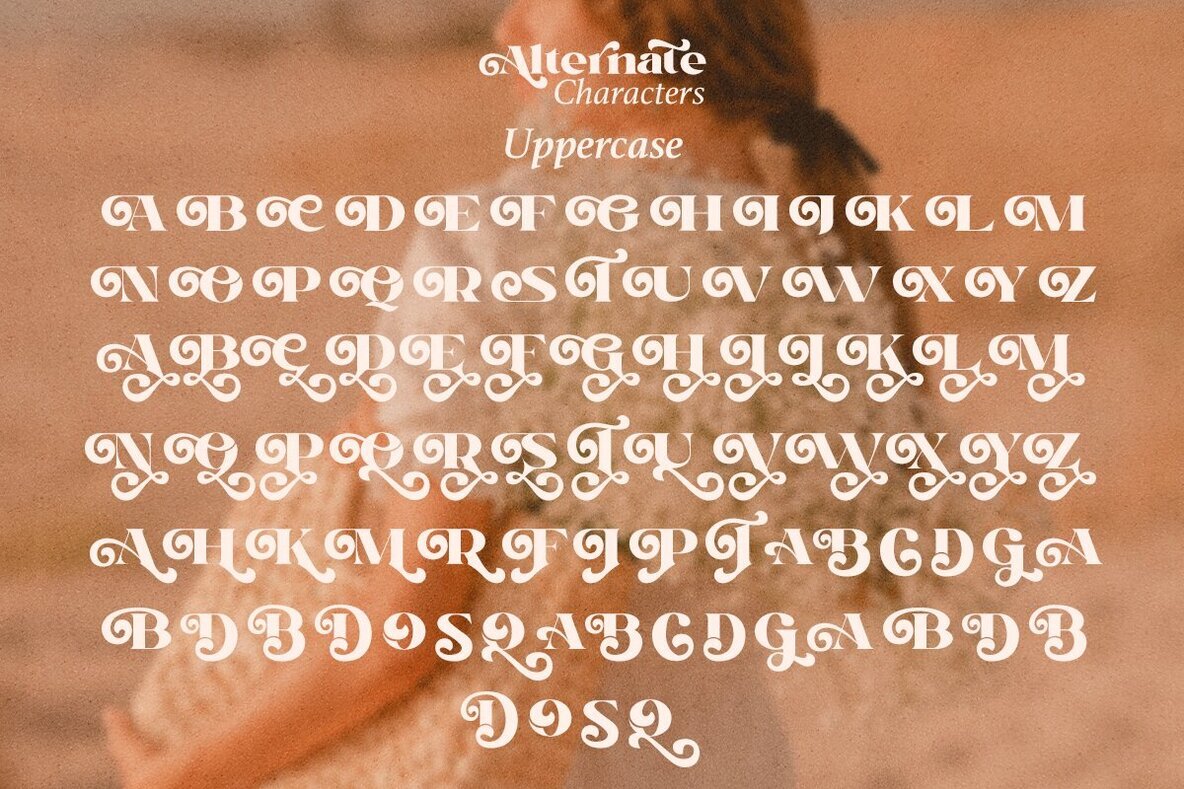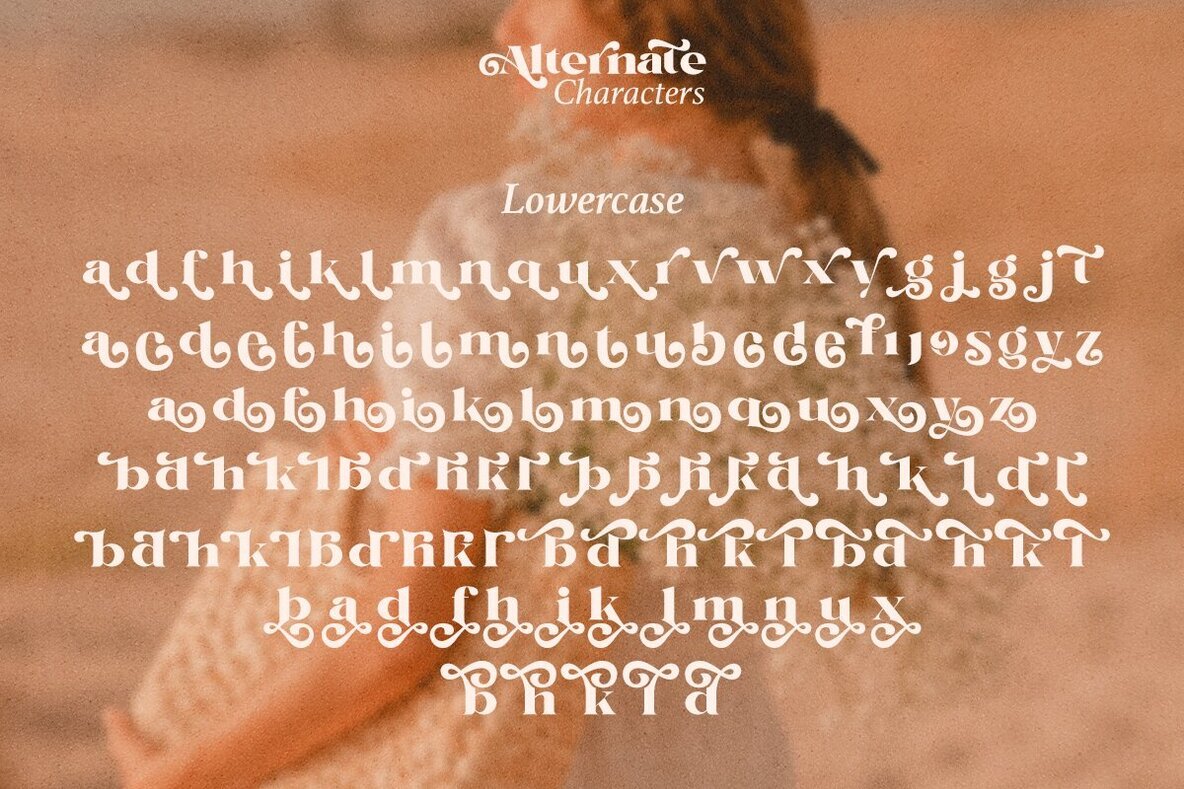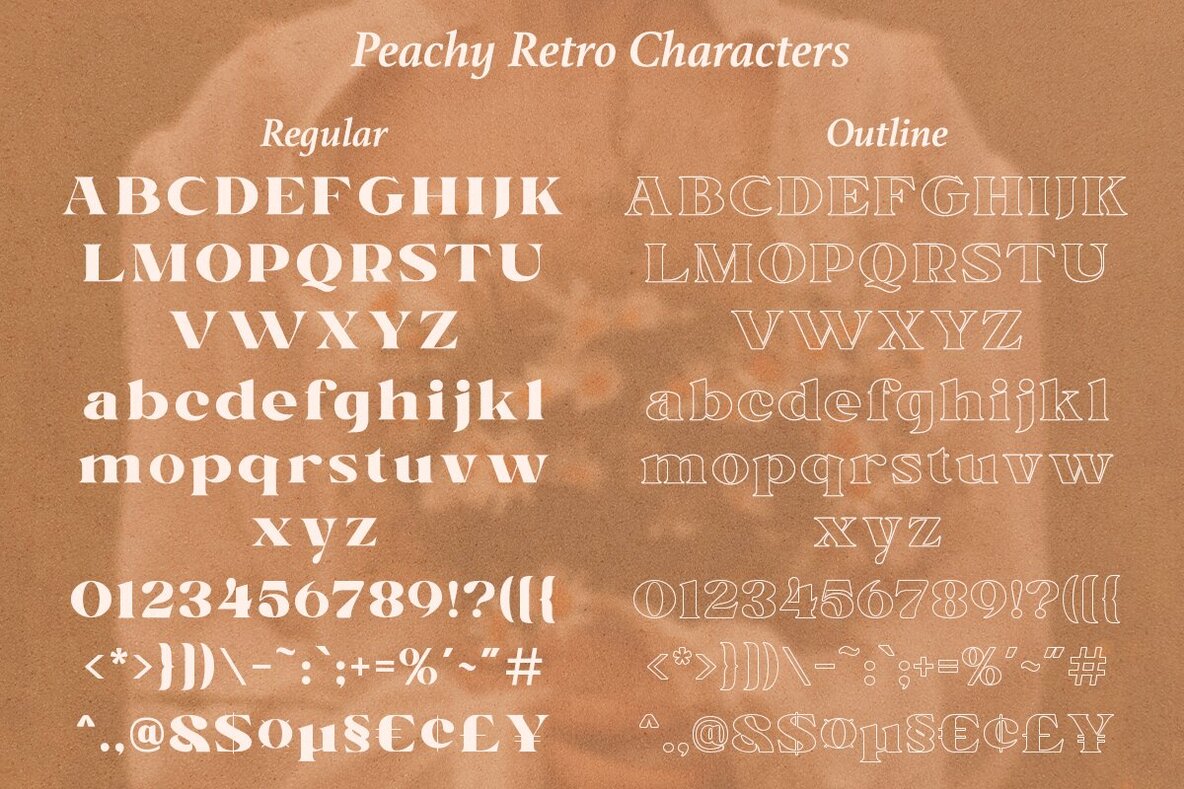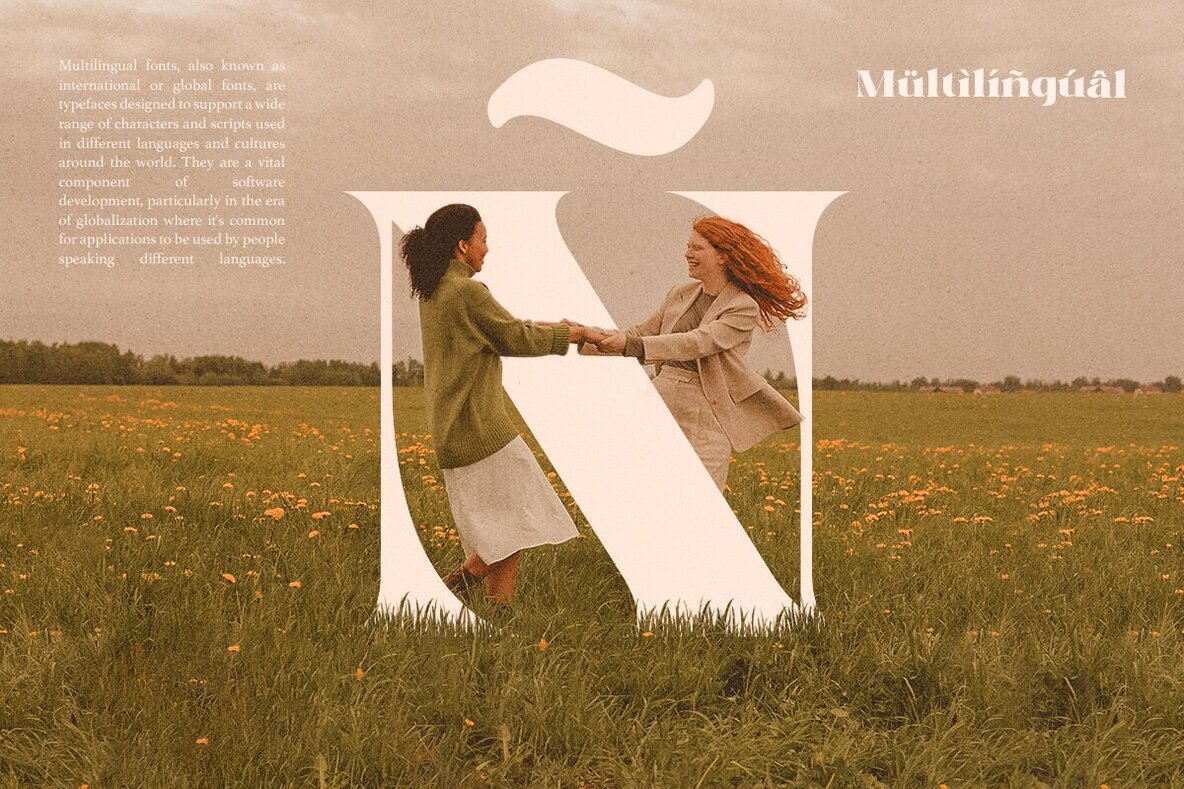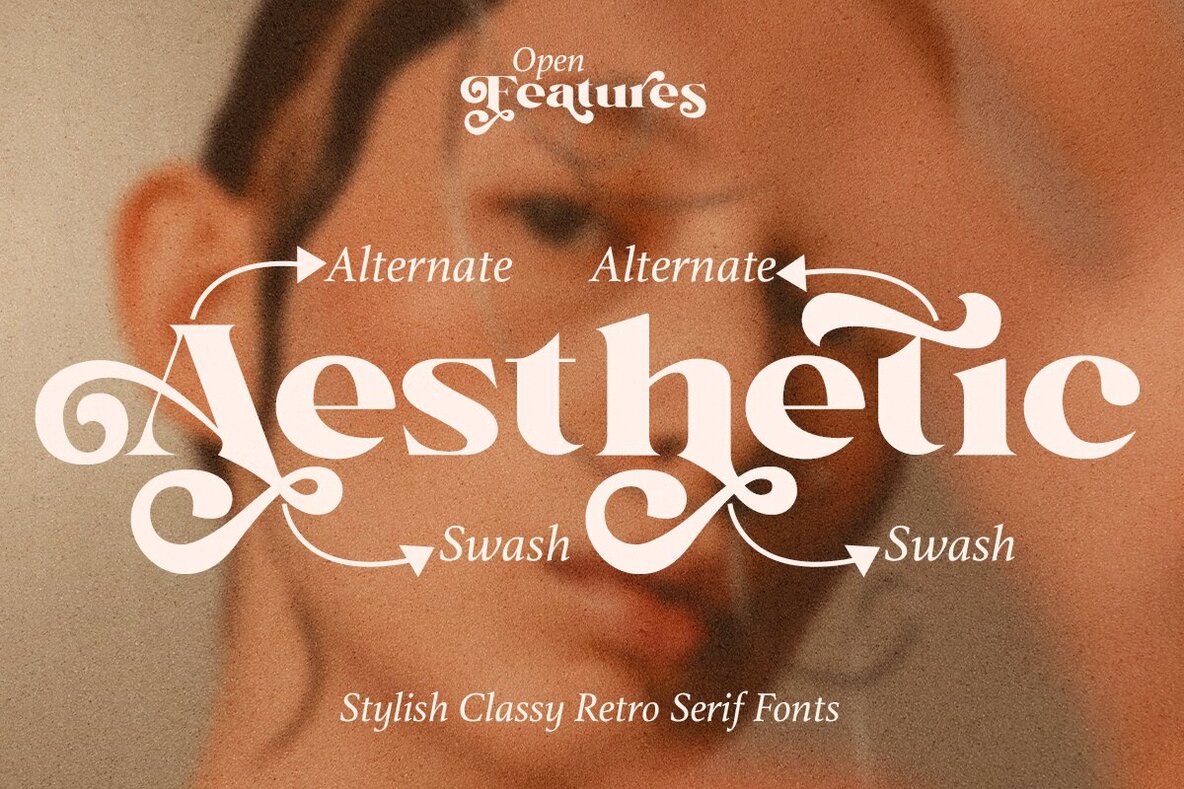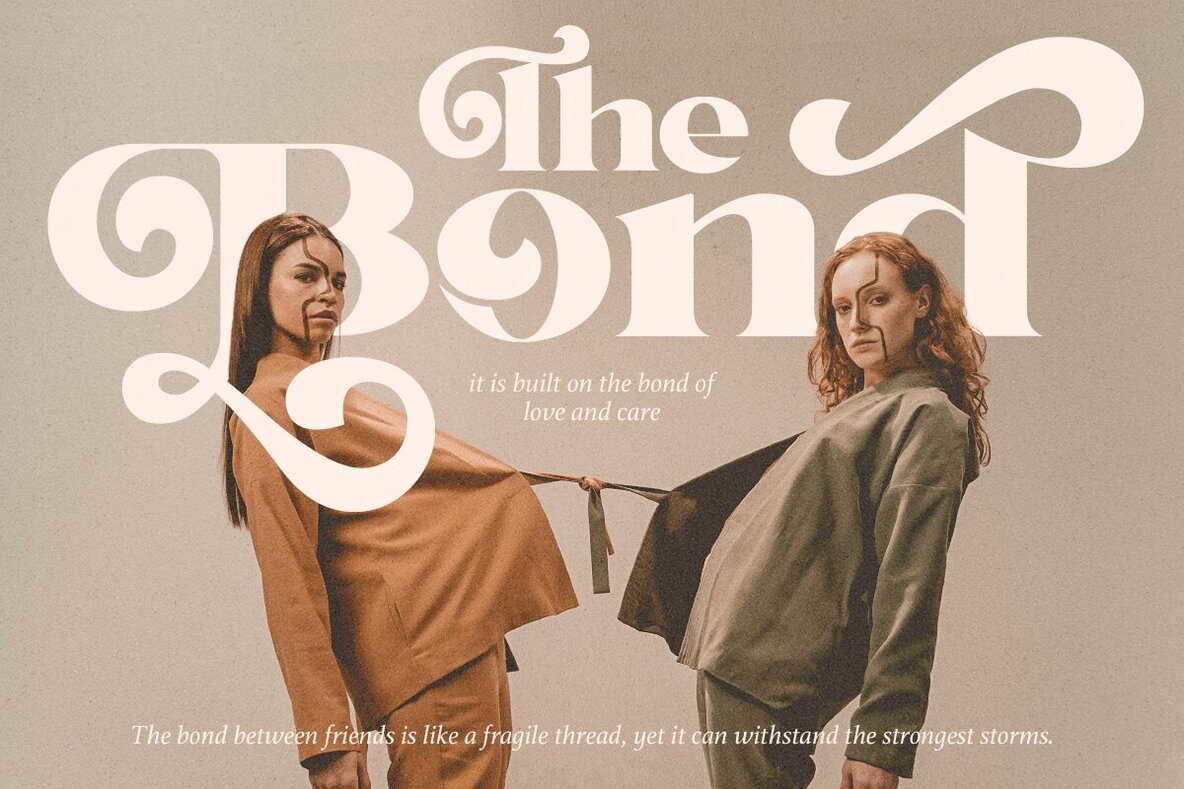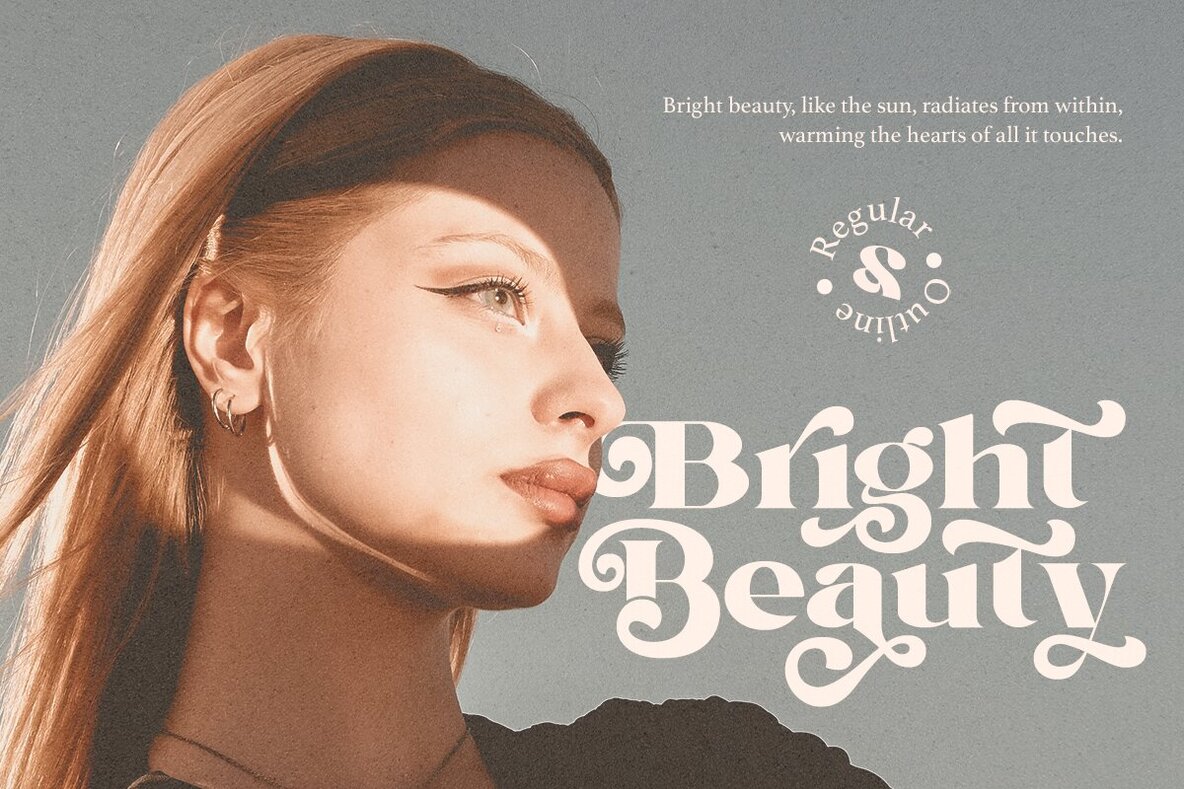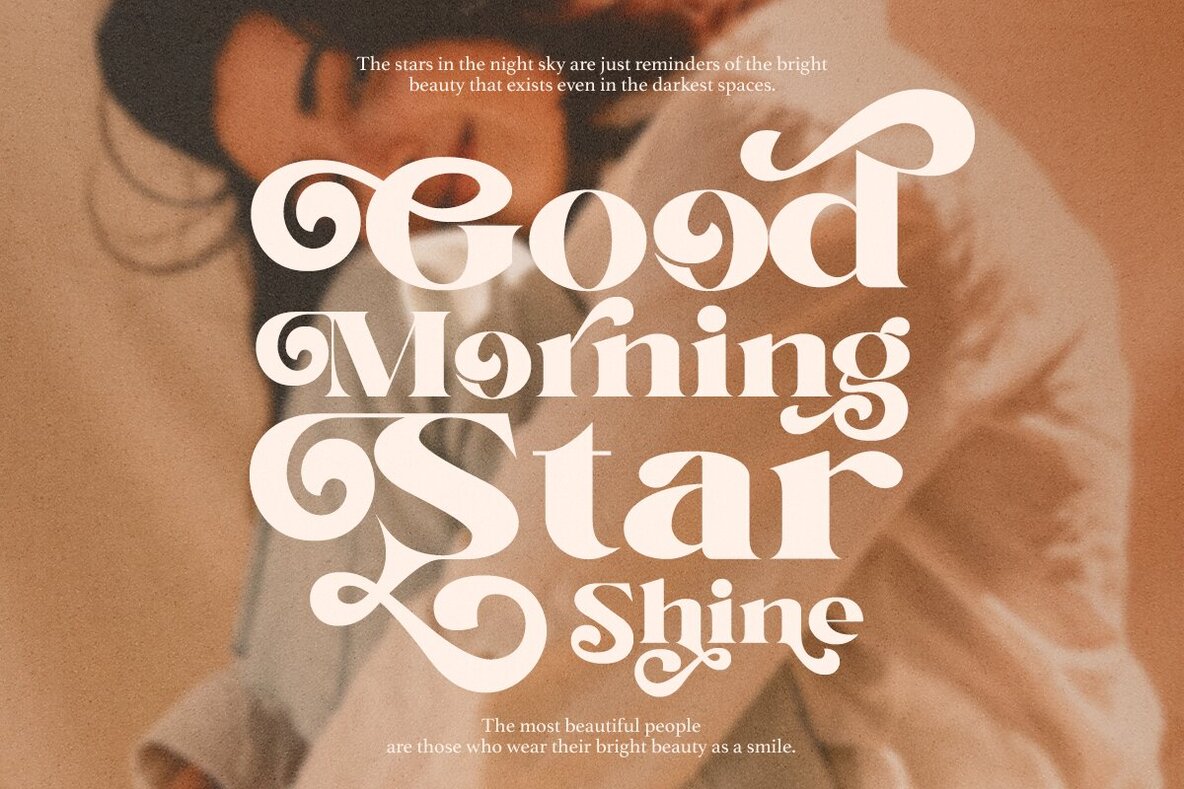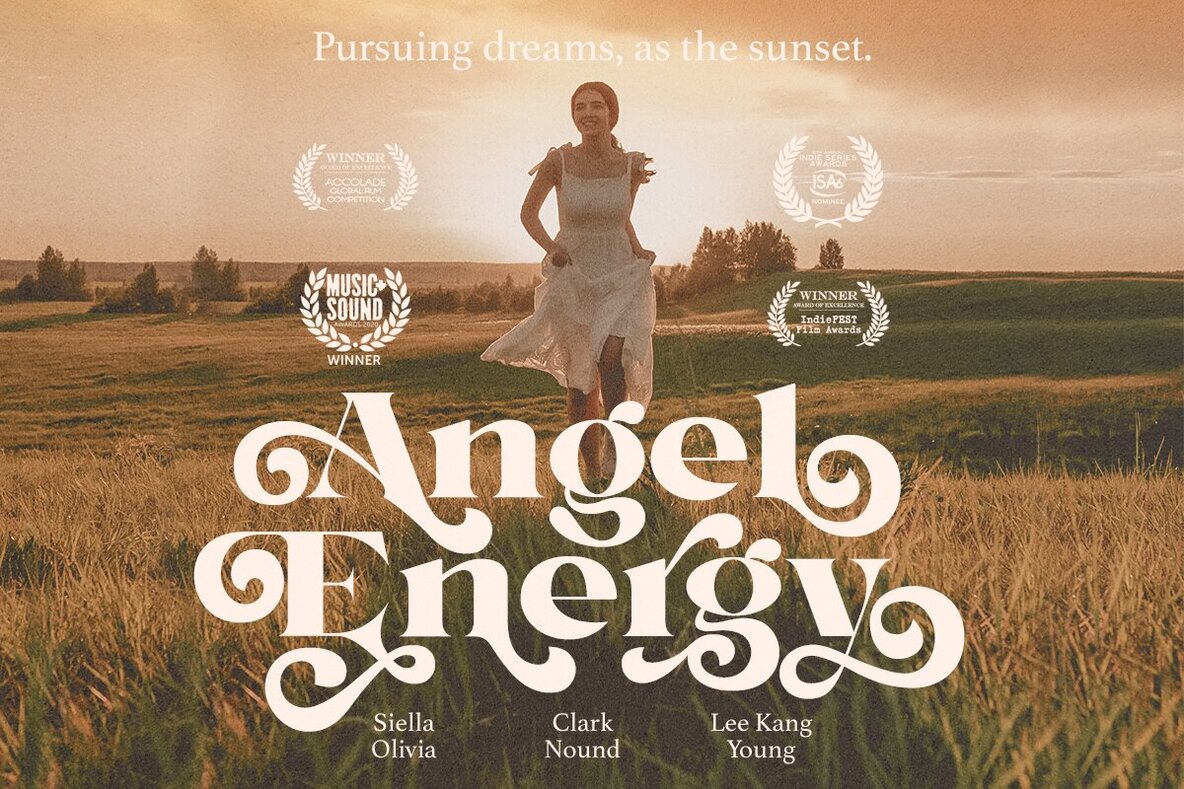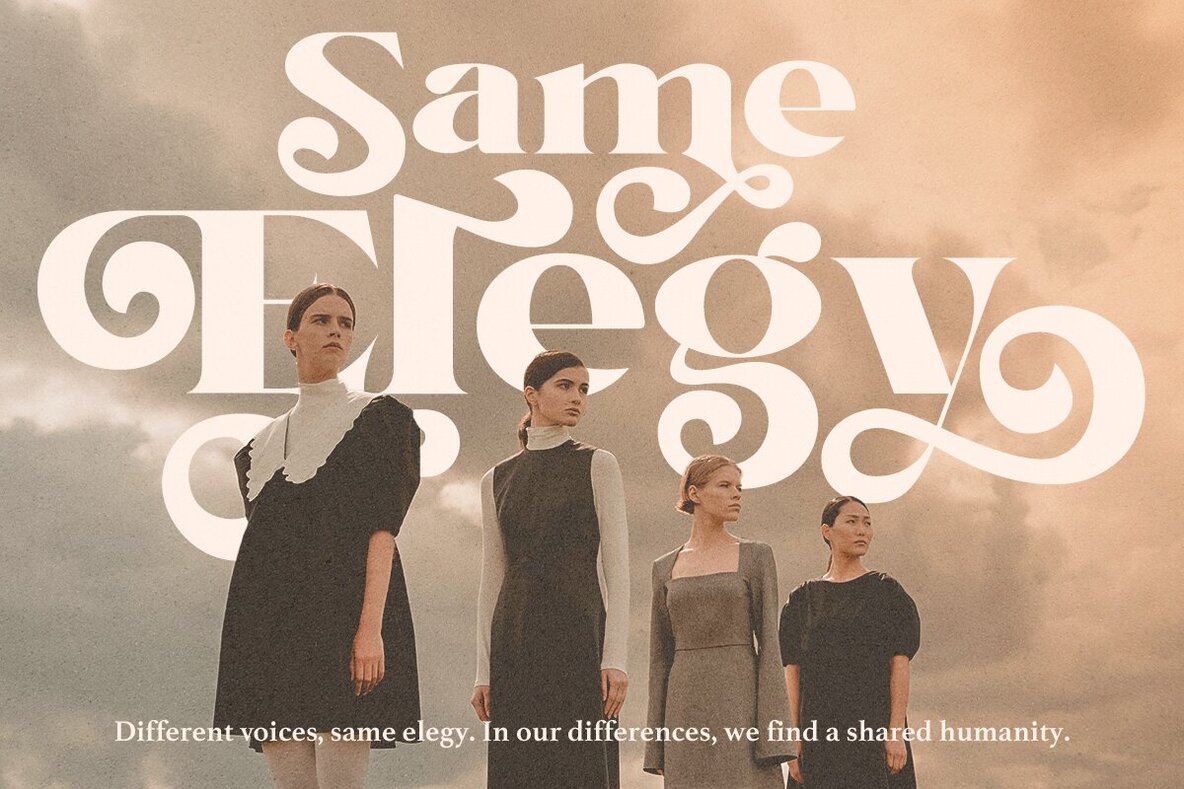
Peachy Retro Font
Peachy Retro Regular
Peachy Retro Outline
Peachy Retro by Dharmas Studio is a serif typeface that captures the nostalgic essence of the 80s and 90s. It combines classic style with contemporary usability, offering a touch of retro charm to your design projects. Peachy Retro includes both uppercase and lowercase characters, with special alternates that enhance its appearance in various settings. Experiment with the Regular and Outline versions, whether within the same word or throughout your body text, to achieve unique typographic expressions. Peachy Retro supports multiple languages including Danish, English, Estonian, Filipino, Finnish, French, Friulian, Galician, German, Gusii, Indonesian, Irish, Italian, Luxembourgish, Norwegian Bokmål, Norwegian Nynorsk, Nyankole, Oromo, Portuguese, Romansh, Rombo, Spanish, Swedish, Swiss-German, and Uzbek (Latin).Peachy Retro: Nostalgic Serif with a Modern Twist
Combination Versatility